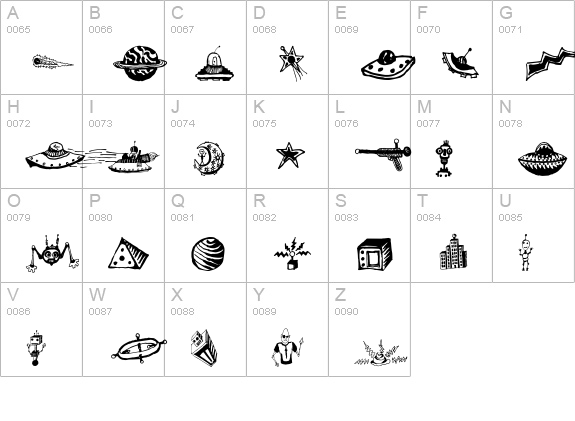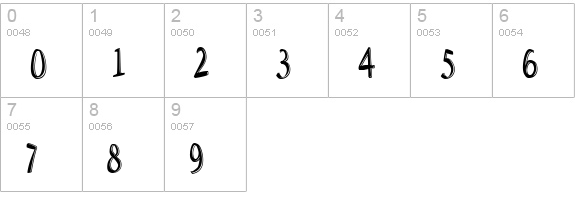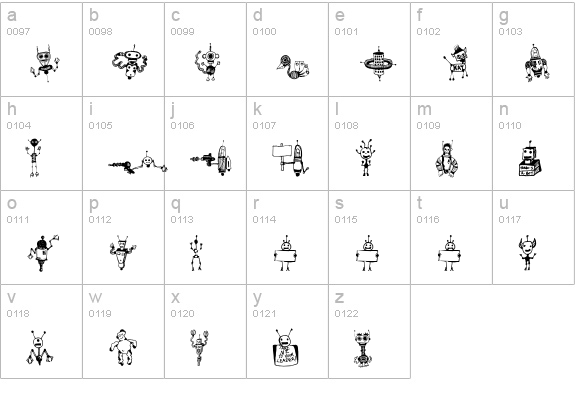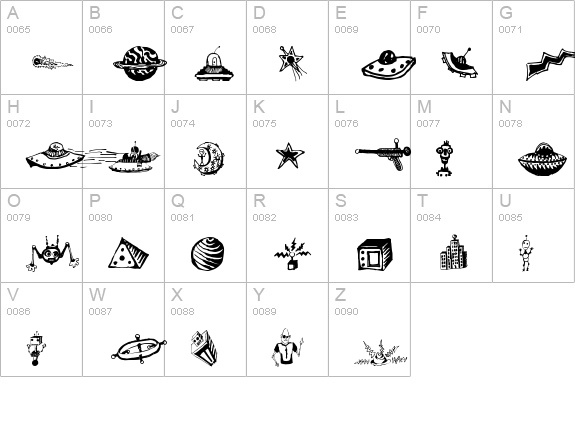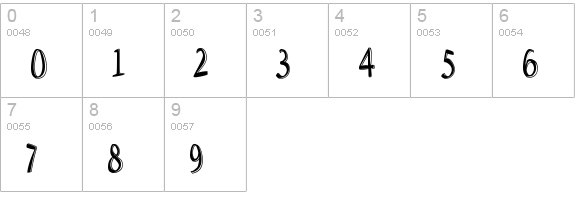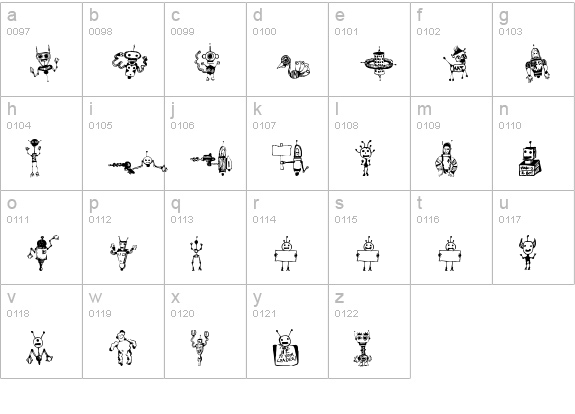
Space Woozies Extras Font Details
Space Woozies Extras is a whimsical and playful font that will transport you to a world of imagination and wonder. This font is perfect for adding a touch of fun and charm to any design project. With its unique and quirky characters, Space Woozies Extras will bring your designs to life and leave a lasting impression. But the best part? It's absolutely free! That's right, you can freely download Space Woozies Extras at FontsMarket.com. Whether you're a professional designer or just someone looking to add a little bit of creativity to your projects, this font is a must-have. With its wide range of extras and ornaments, Space Woozies Extras offers endless possibilities for customization. From cute little aliens to rocket ships and planets, this font has everything you need to create a truly out-of-this-world design. Not only is Space Woozies Extras visually stunning, but it is also incredibly easy to use. This font is compatible with all major design software, making it a breeze to incorporate into your projects. So whether you're designing a poster, a website, or even a children's book, Space Woozies Extras will add that extra touch of magic. So why wait? Download Space Woozies Extras today and let your creativity take flight. With its free availability on FontsMarket.com, there's no reason not to give this font a try. Join the countless designers who have already fallen in love with Space Woozies Extras and let your imagination soar to new heights.